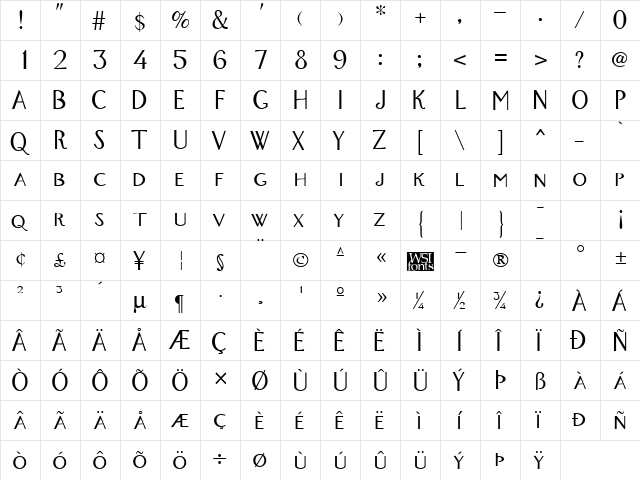
FoxTrot Regular
Design Context for FoxTrot Typeface
FoxTrot takes a measured approach to typography — its balanced proportions and neutral character make it a reliable workhorse for both digital and print work.